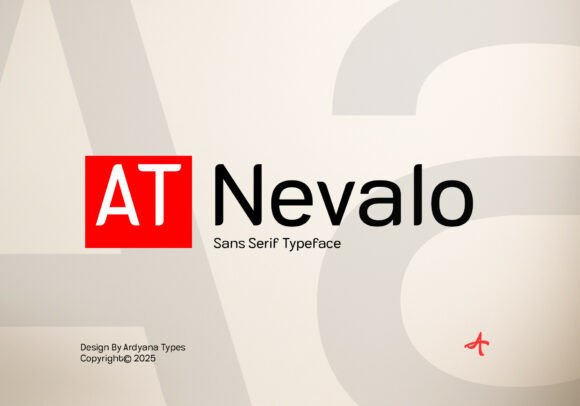
Introducing AT Nevalo Font: The Epitome of Modern Sans Serif Typography
In the realm of typography, the right font can elevate a design project from ordinary to extraordinary. For those seeking a clean, modern, and highly readable sans serif typeface, look no further than AT Nevalo Font. Designed with sharp precision and a minimalistic style, AT Nevalo is the perfect addition to any design endeavor, whether digital or print.
The Inspiration Behind AT Nevalo
AT Nevalo is a product of today’s typography trends, which emphasize simplicity, elegance, and versatility. The font’s creation was inspired by the need for a typeface that not only looks professional but also enhances the readability of the text. This makes AT Nevalo an excellent choice for a wide range of applications, from branding and posters to editorial layouts, websites, and packaging.
Key Features of AT Nevalo Font
Clean and Modern Design
AT Nevalo boasts a clean and modern sans serif design that is both timeless and trendy. Its sleek lines and minimalistic approach ensure that the font remains versatile and adaptable to various design contexts.
Sharp Precision
The font is crafted with sharp precision, ensuring that every letterform is meticulously designed to contribute to the overall aesthetic and readability of the text.
High Readability
One of the standout features of AT Nevalo is its high readability. This makes it an ideal choice for body text in editorial layouts, websites, and any project where the content needs to be easily digestible by the audience.
Professional Elegance
AT Nevalo brings a level of professional elegance to any design project. Its sophisticated appearance makes it suitable for high-end branding, luxury packaging, and premium editorial content.
Versatility of AT Nevalo
The versatility of AT Nevalo is one of its most compelling attributes. This font seamlessly adapts to both digital and print mediums, ensuring that your design looks impeccable across all platforms.
Digital Applications
For digital projects, such as website design, mobile apps, and digital marketing materials, AT Nevalo’s clarity and precision shine through. Its clean lines ensure that the text is easily readable on screens of all sizes.
Print Applications
In print, AT Nevalo truly comes alive. Its elegant appearance makes it perfect for high-end magazines, luxury brochures, and premium product packaging. The font’s ability to convey professionalism and sophistication is unmatched.
Use Cases for AT Nevalo Font
Branding
Establishing a strong brand identity is crucial, and the right typography plays a significant role. AT Nevalo, with its modern and elegant design, is an excellent choice for logos, business cards, and brand guidelines.
Posters and Flyers
For posters and flyers, AT Nevalo’s bold and clean appearance ensures that your message stands out. Its readability, even at larger sizes, makes it a go-to font for impactful designs.
Editorial Layouts
In editorial design, such as magazines and newspapers, AT Nevalo’s high readability and elegant appearance make it a perfect fit. It enhances the reader’s experience and adds a touch of sophistication to the content.
Websites
For websites, a font that works well across various devices and screen sizes is essential. AT Nevalo’s responsive design ensures that your website’s typography is consistent and professional, enhancing user experience.
Packaging
Product packaging is a critical aspect of branding, and the typography used can significantly impact the product’s perceived value. AT Nevalo’s elegant and modern design makes it suitable for luxury packaging that stands out on store shelves.
AT Nevalo Font is a versatile and modern sans serif typeface that brings professional elegance and high readability to any design project. Its clean and precise design makes it adaptable to both digital and print mediums, ensuring that your visual language is consistently communicated across all platforms. Whether you’re working on branding, posters, editorial layouts, websites, or packaging, AT Nevalo is an excellent choice that adds confidence and clarity to your designs.
Why Choose AT Nevalo?
- Modern Design: A clean and modern sans serif typeface that is both elegant and professional.
- High Readability: Ensures that your content is easily readable across various mediums.
- Versatility: Seamlessly adapts to digital and print applications.
- Elegance: Adds a touch of sophistication to any design project.
- Precision: Crafted with sharp precision for impeccable aesthetic appeal.
In conclusion, AT Nevalo Font is a powerful tool for designers seeking to elevate their projects with a modern, elegant, and highly readable typeface. Its versatility, combined with its professional appearance, makes it an invaluable asset in the world of design.